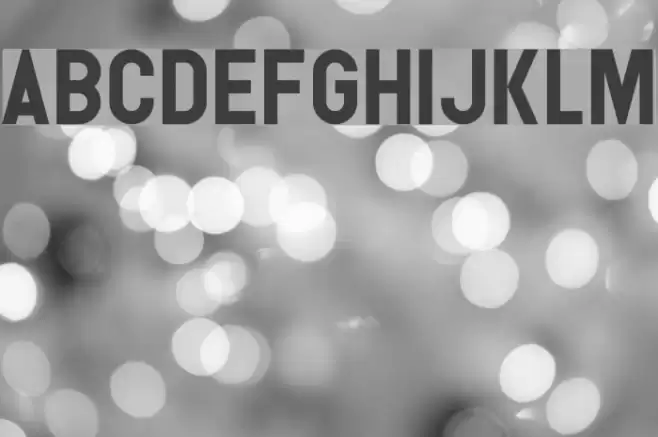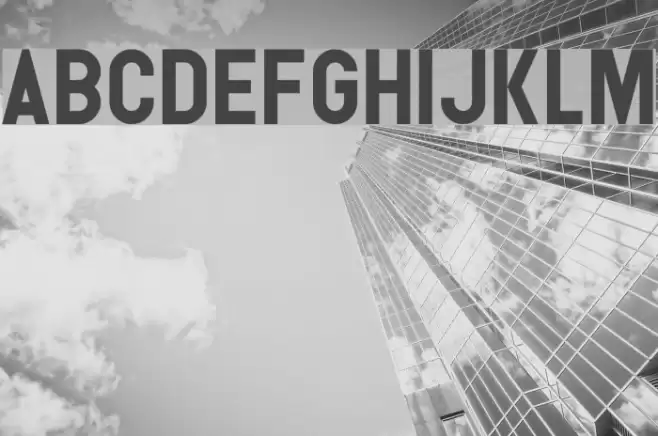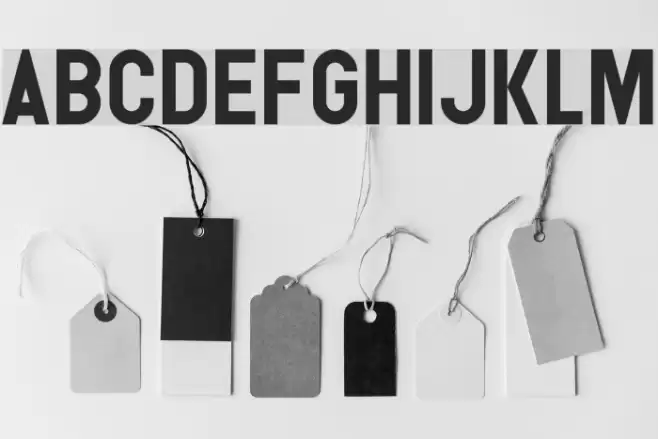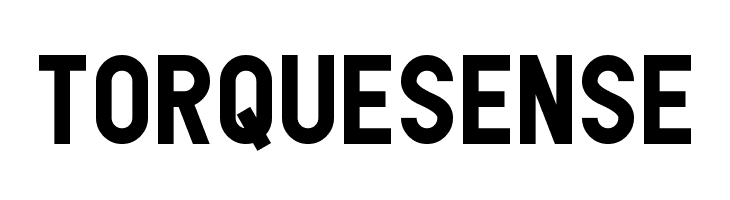
Torque Sense Font
Torque Sense Description
This font is a bold, sans-serif typeface characterized by its strong, geometric shapes and clean lines. The uppercase letters are uniform in height, with a consistent stroke width that gives it a robust and modern appearance. The lowercase letters maintain the same boldness, ensuring readability and impact. Numbers are equally bold and clear, making them suitable for various applications. The special characters are designed to match the overall style, providing a cohesive look across all elements. This font's design is ideal for making a statement, with its high legibility and striking presence.
A bold, modern sans-serif font with strong geometric shapes and clean lines from Uncategorized fonts.
- Proposed Projects: Ideal for headlines, posters, branding, and advertising where a strong visual impact is needed.